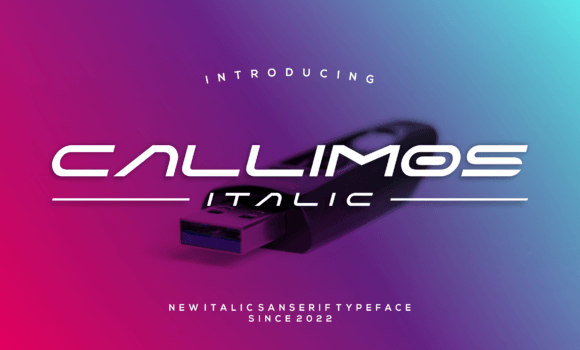
callimos
Callimos Italic Font – Free Download Introduction to Callimos Italic Font Callimos Italic is a futuristic sci-fi font designed for modern, technological, and standout typography needs. 📸 Preview Gallery 4 images 📌 Product Name Callimos Italic Font 👤 Author cozzdesign